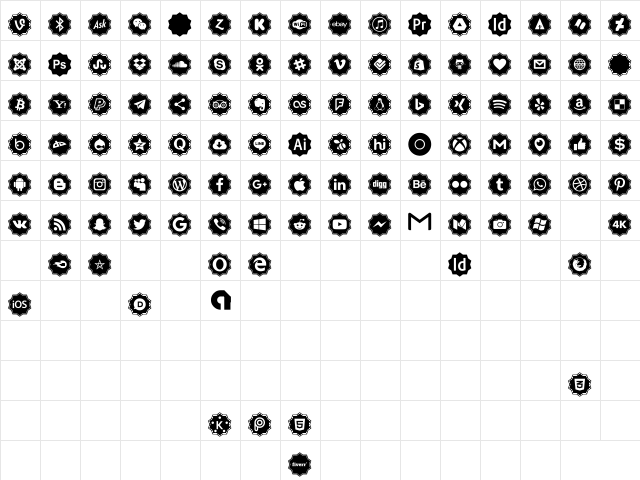
Font logos Color Regular
Design Context for Font logos Color Typeface
Font logos Color is a composed and adaptable typeface that performs quietly and consistently across a wide range of design contexts.